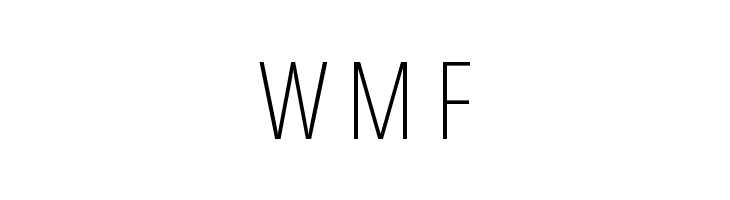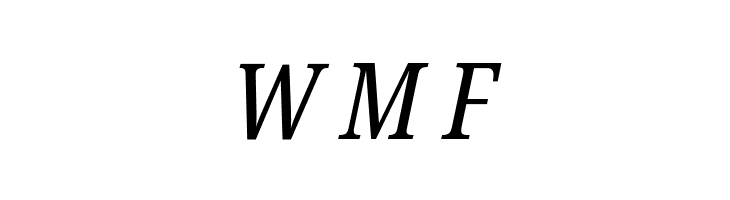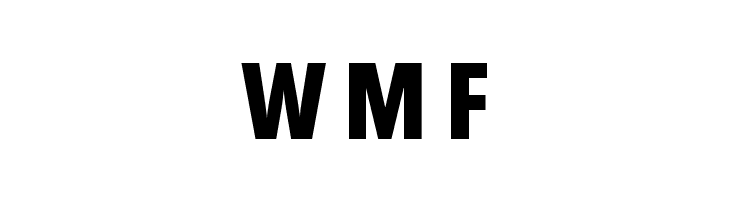
A modern, extra-condensed, and extra-light typeface with a clean and sophisticated appearance.
A modern, extra-condensed sans-serif font for Khmer script, ideal for UI design.
An elegant, extra condensed italic serif typeface with a modern touch.
A modern, extra-condensed sans-serif font with bold weight, ideal for UI design.
A refined, semi-condensed, extra light italic serif font with high contrast.
A minimalist, extra condensed, and thin font with a modern design.
Condensed serif font for Ethiopic script.
A bold, extra-condensed sans-serif font with strong visual impact.
A medium weight, extra condensed font designed for clarity and space efficiency, ideal for Khmer script.
A clean, modern, and semi-condensed extra light font with excellent readability.